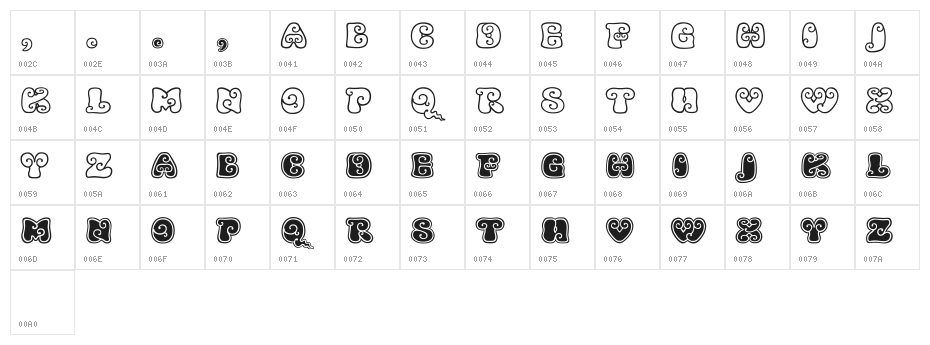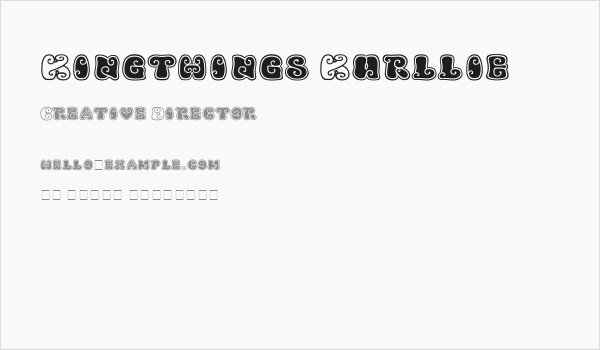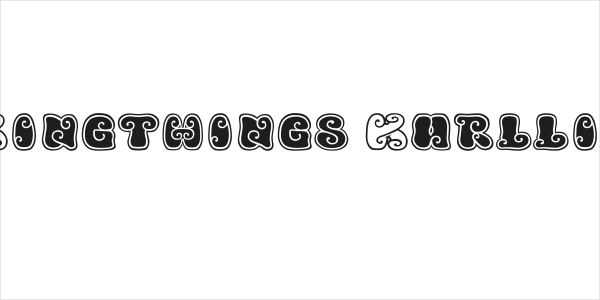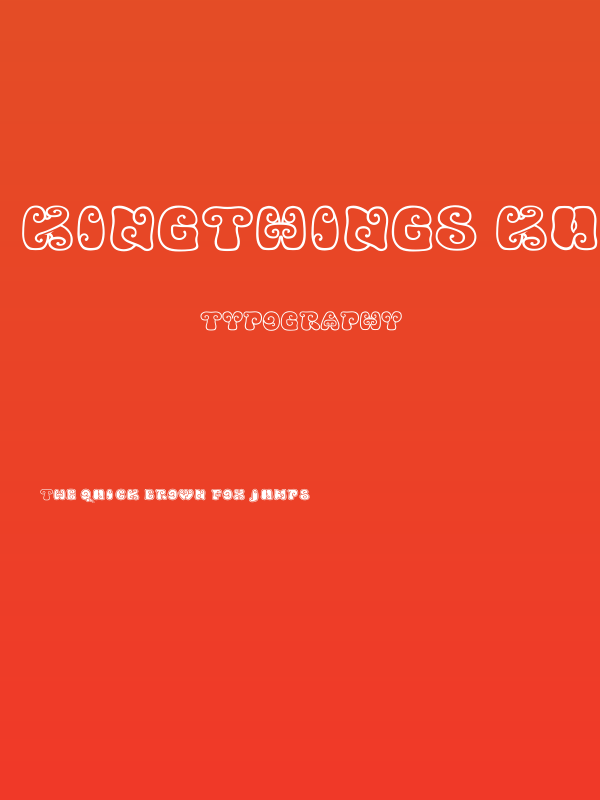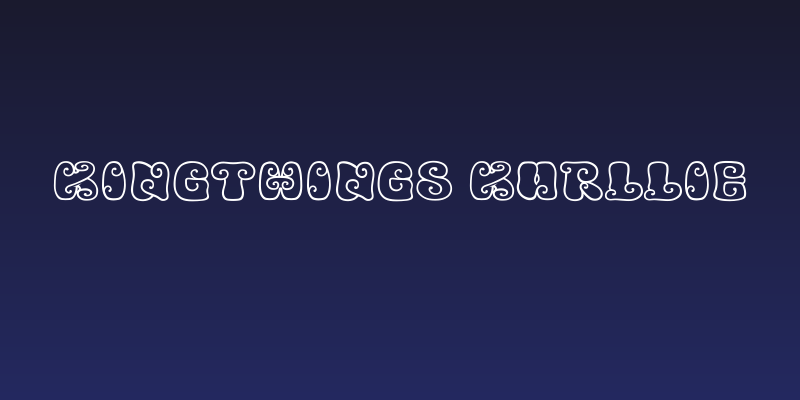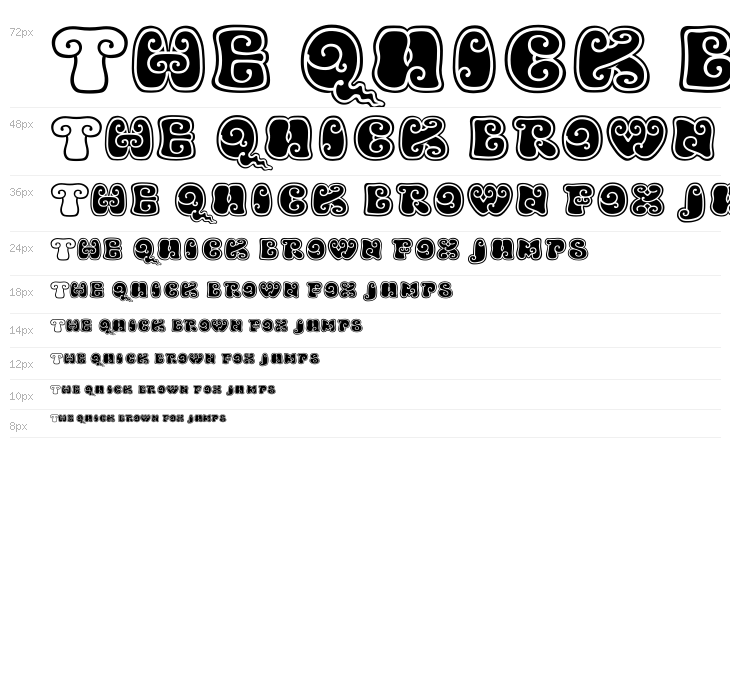
Kingthings Kurllie Font
Kingthings Kurllie Description
This font features a playful and whimsical design, characterized by its bold, rounded letters with intricate swirls and curls. The uppercase letters have a unique, decorative flair, with some characters incorporating heart shapes and other embellishments. The font has a thick outline that enhances its bold appearance, making it stand out. The style is consistent across both uppercase and lowercase letters, maintaining a cohesive look. The font's design is eye-catching and ideal for creative projects that require a fun and lively touch.